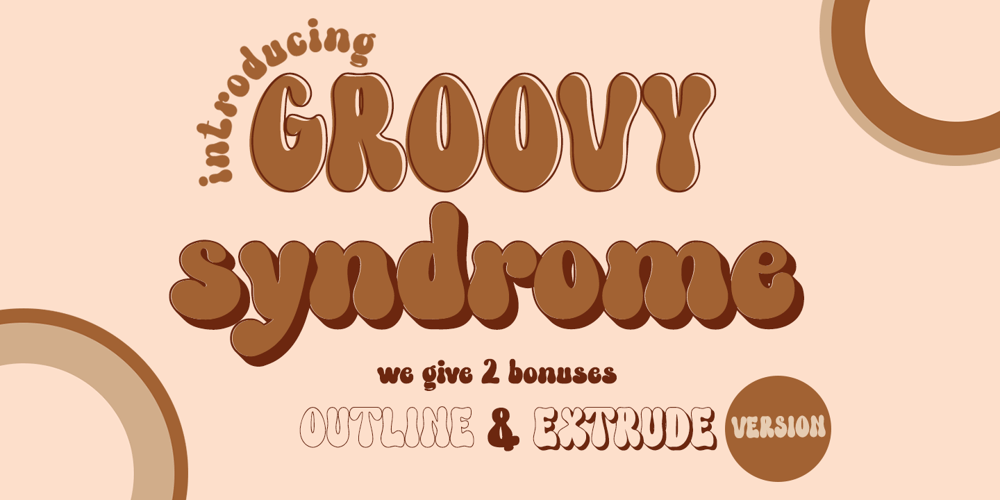
Groovy Syndrome Font Family was designed by Sarwo Edhi Prayitno and published by Haksen. Groovy Syndrome contains 3 styles and family package options. Groovy Syndrome is perfect for shirts, retro designs, procreate, stickers, logos, branding, greeting cards, Cricut projects, posters, magazines, social media, prints and more!There are three fonts included – Regular, Outline and Extrude.You can use these three fonts to create your own retro quotes and words!Hope You enjoy it.All the Best,Haksen